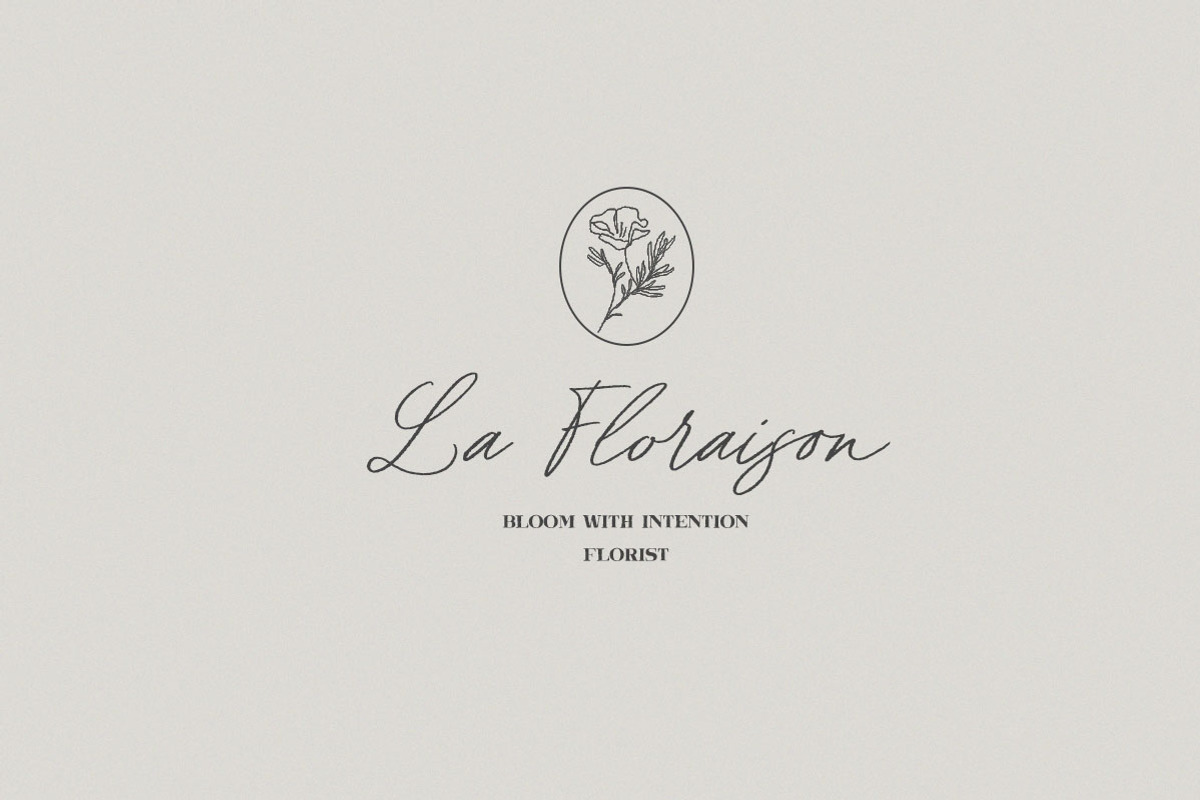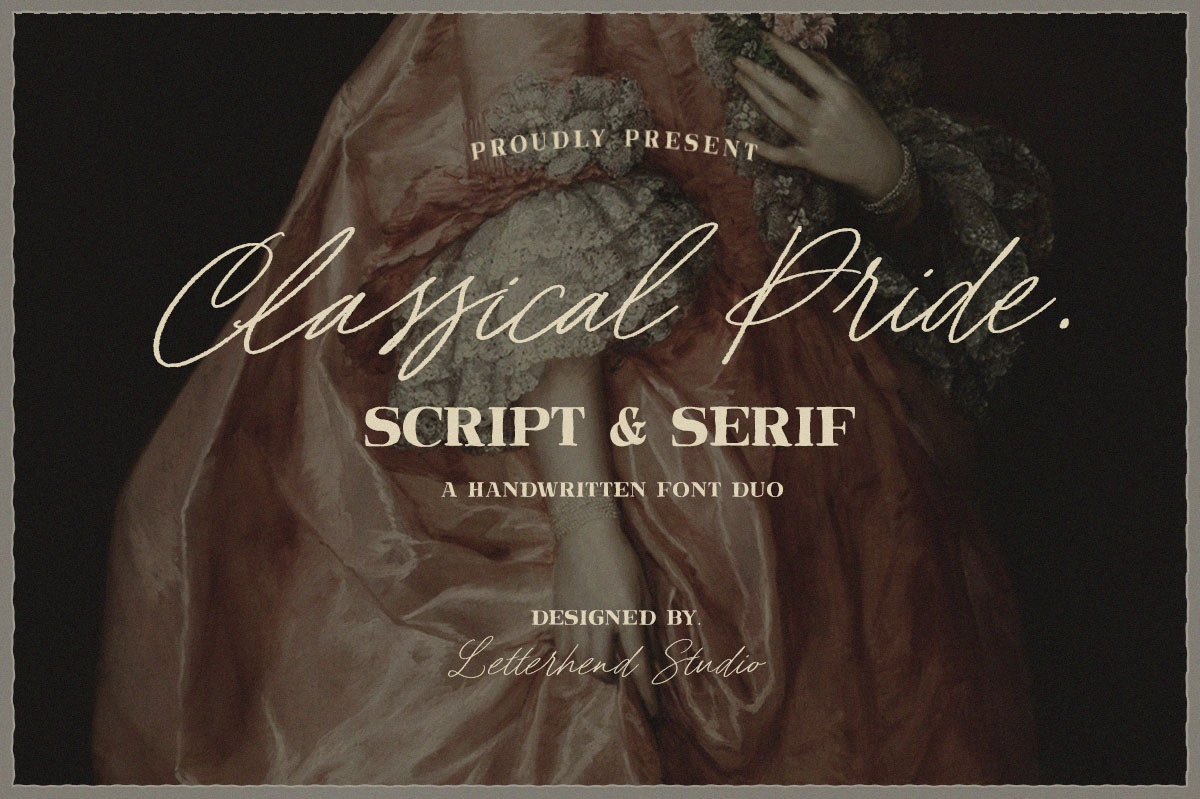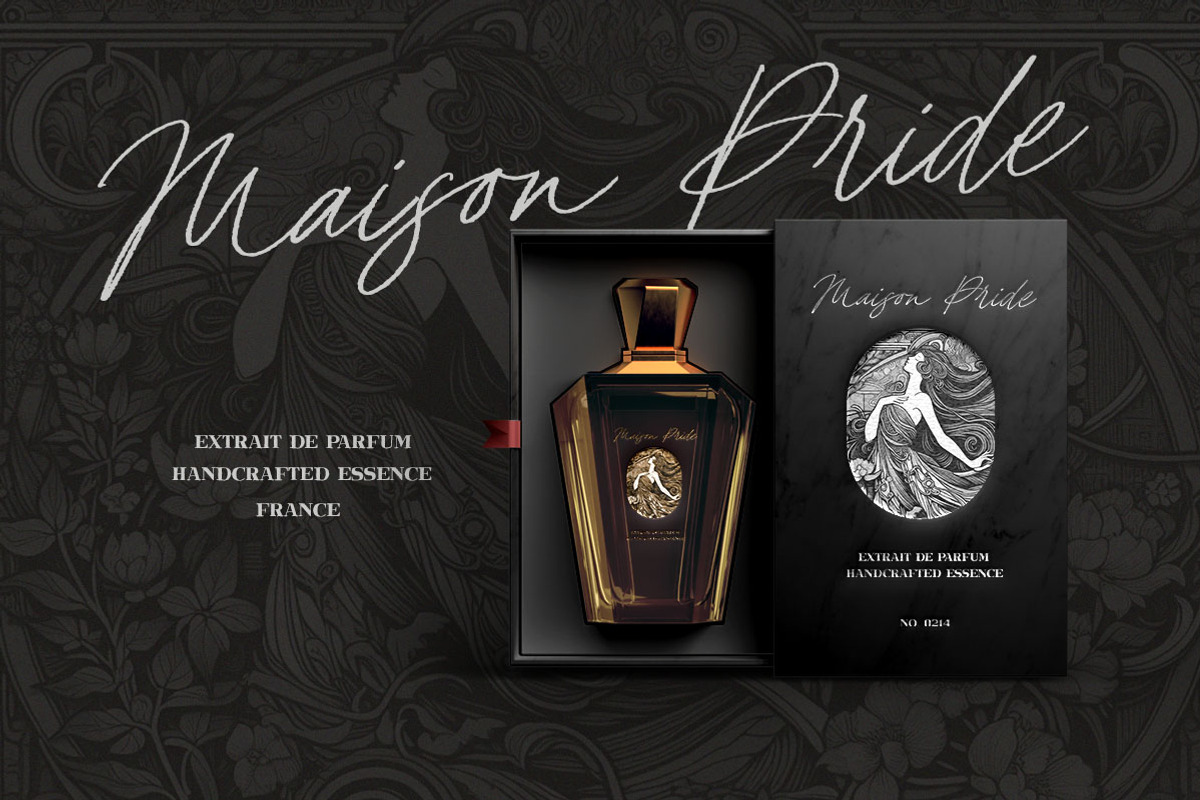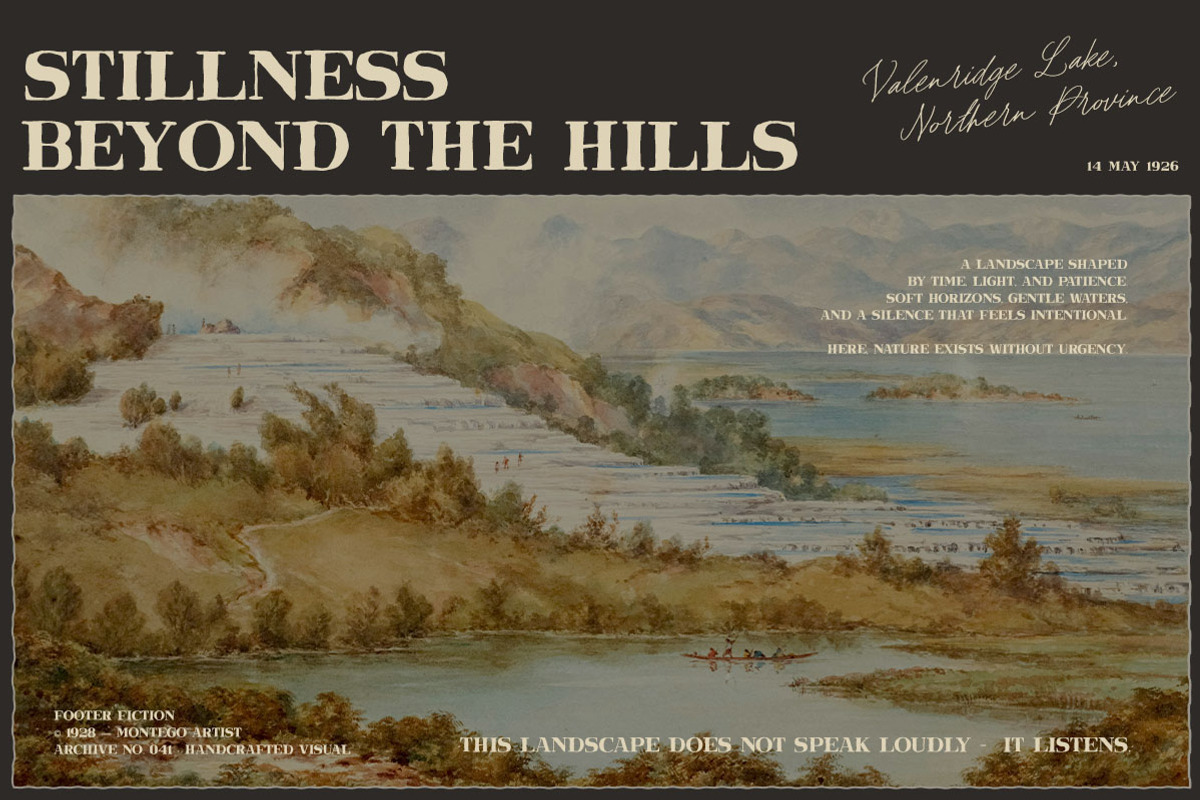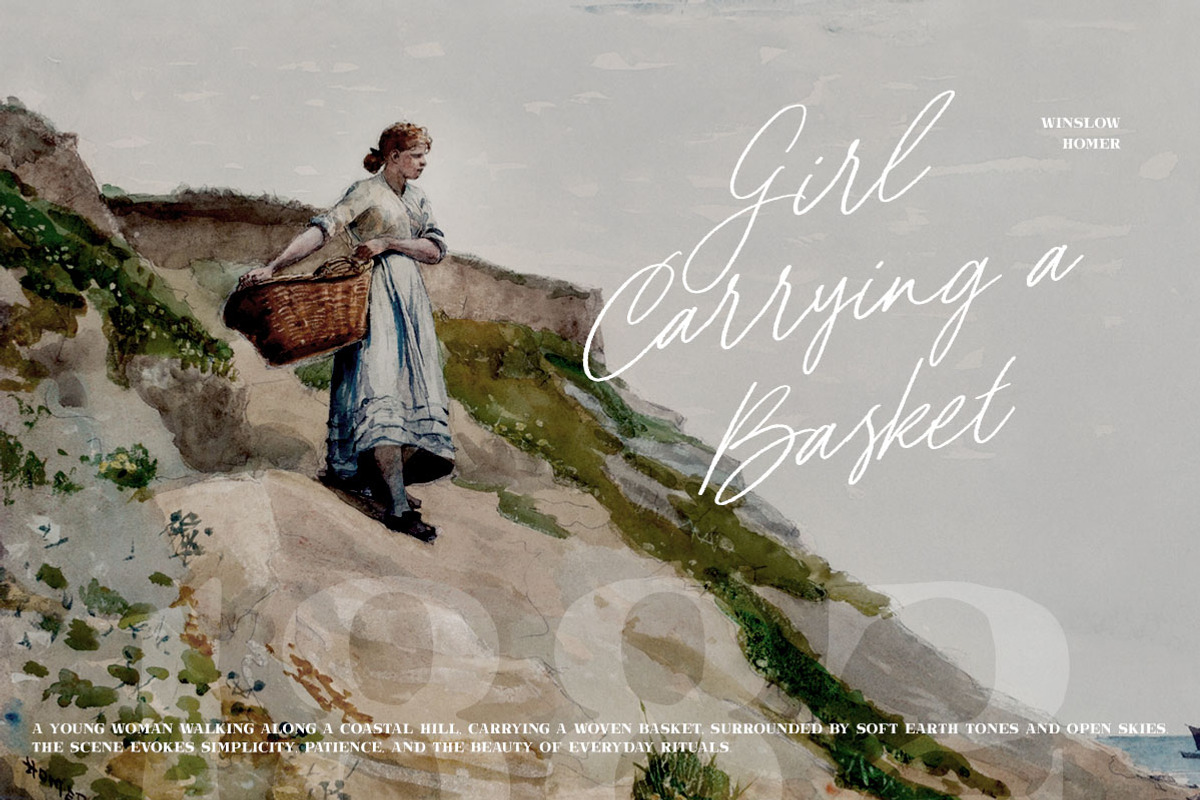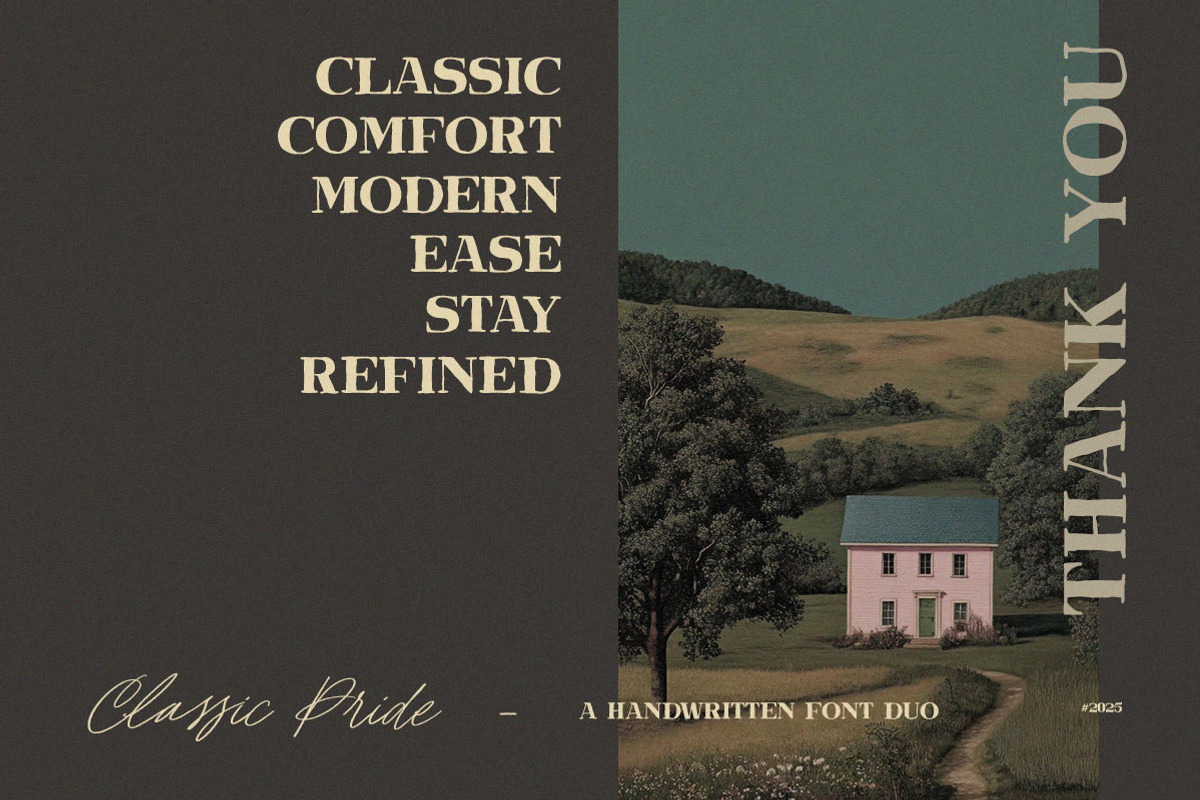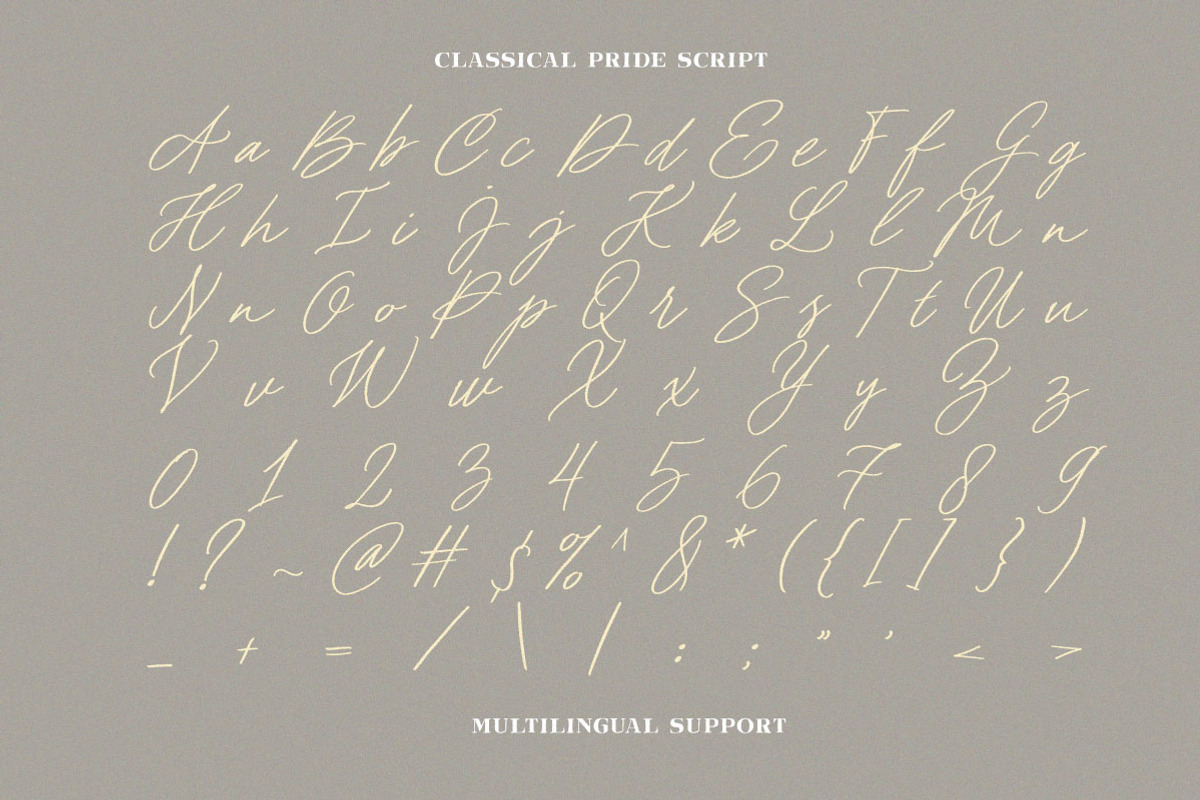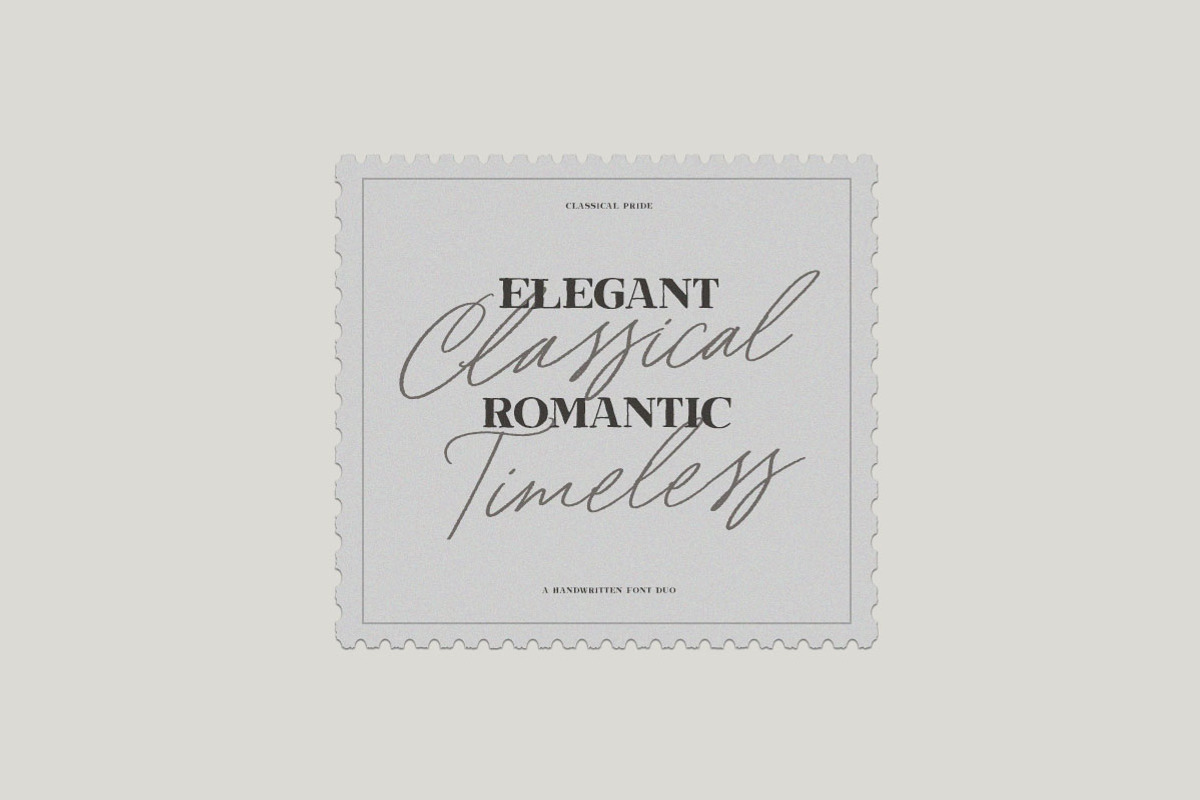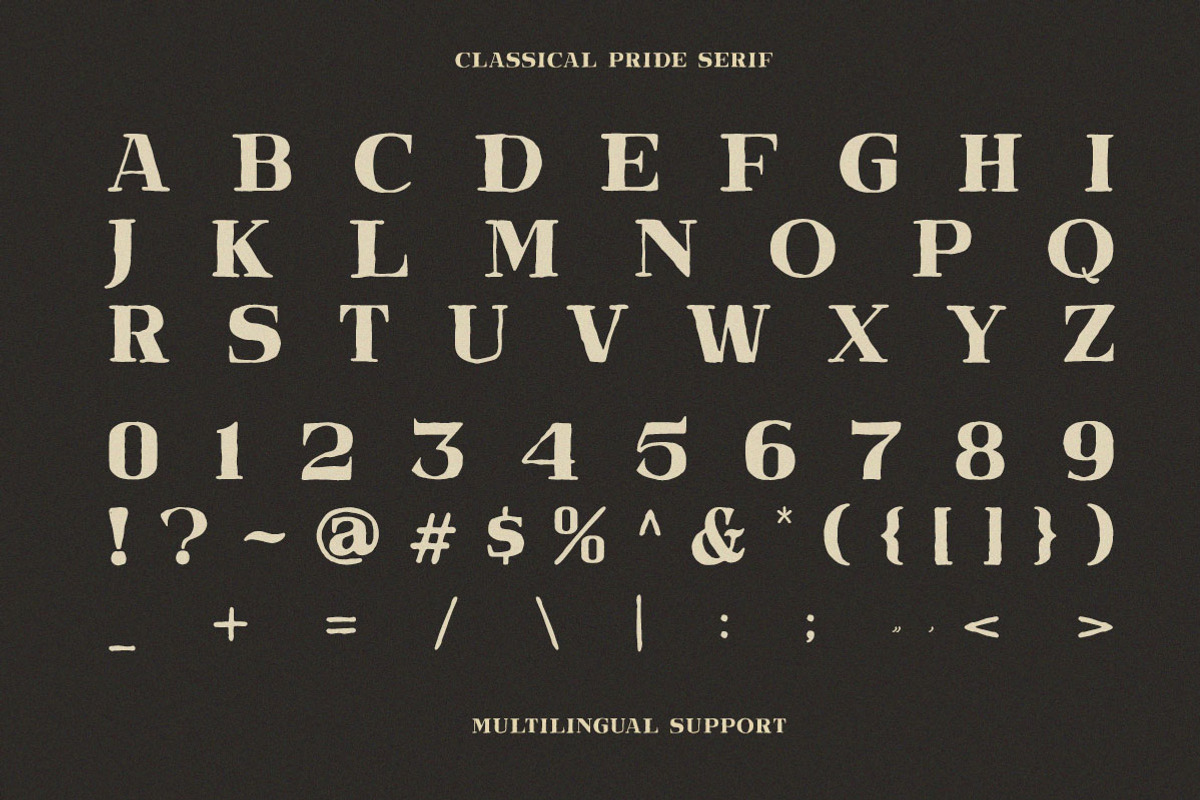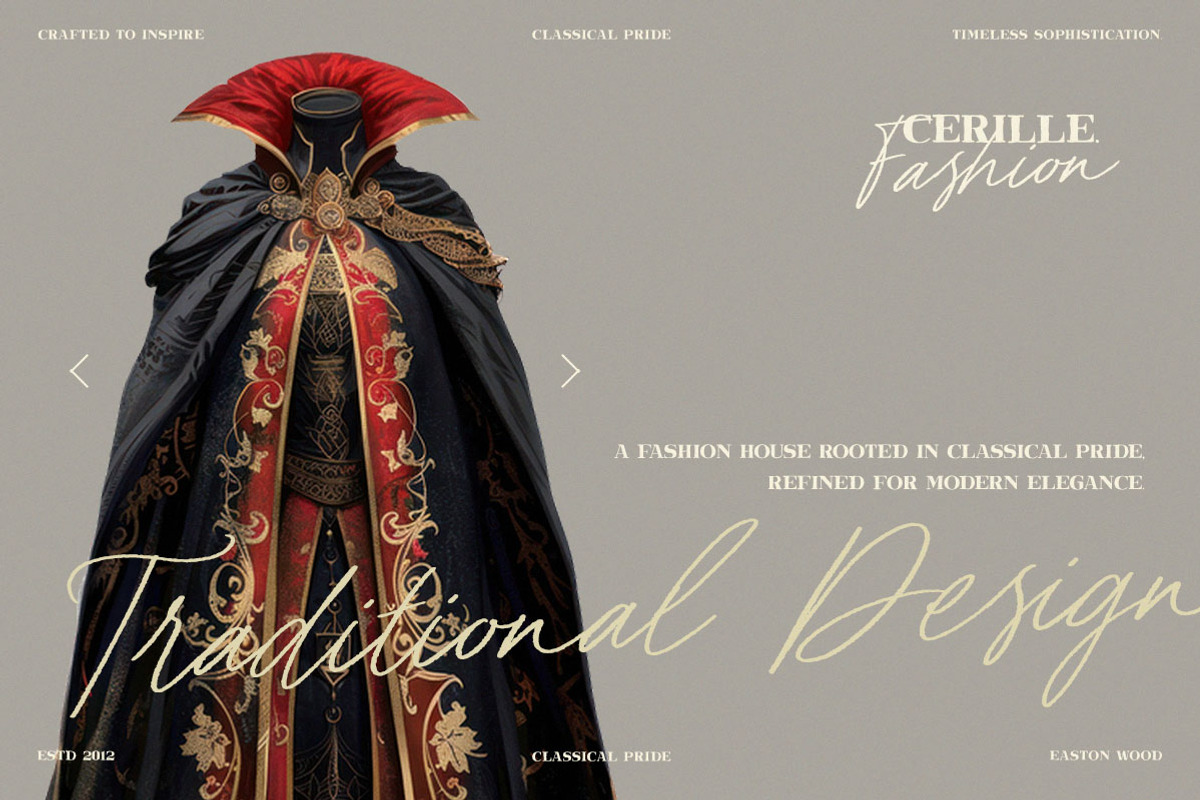
Classical Pride Timeless Beauty Font
Classical Pride is a handwritten font duo that mixes soft, flowing script with a clean, classic serif. The script feels graceful and romantic, while the serif keeps everything grounded and timeless. This duo works beautifully for branding, packaging, editorials, invitations, and refined visual layouts that need a calm, classic, and polished touch—without feeling stiff. Features :